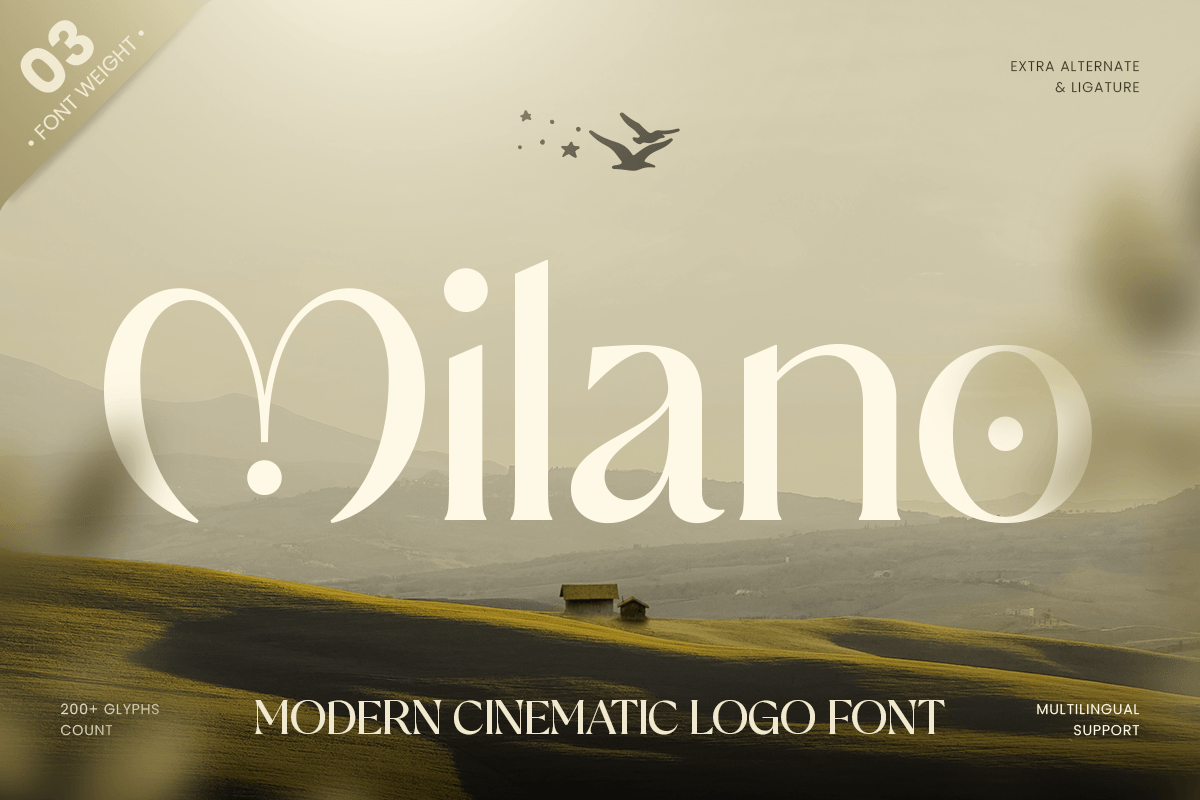
Milano
-Modern Cinematic Logo Font
Milano – Modern Cinematic Logo Font
Milano is a modern cinematic logo serif font designed to bring elegance, drama, and refined sophistication to your visual identity. With its graceful serif details, cinematic proportions, and polished letterforms, this typeface is perfect for luxury logos, editorial titles, fashion branding, premium packaging, and high-end creative projects.
Inspired by timeless cinema aesthetics and modern luxury design, Milano creates a strong yet elegant typographic presence. Its refined curves and balanced contrast make every word feel exclusive, memorable, and visually expressive across both print and digital media.
Whether used for film titles, magazine layouts, boutique branding, wedding stationery, or premium product labels, Milano delivers a cinematic and sophisticated tone that elevates every composition.
Milano – Modern Cinematic Logo Serif Font Features
• Modern cinematic serif design with elegant logo appeal
• Also preapred with 3 weights: light, regular and bold
• Perfect for luxury branding, film titles, editorials, and packaging
• Refined serif details with premium visual character
• Ideal for fashion, beauty, lifestyle, wedding, and creative industries
• OpenType features for enhanced typographic styling